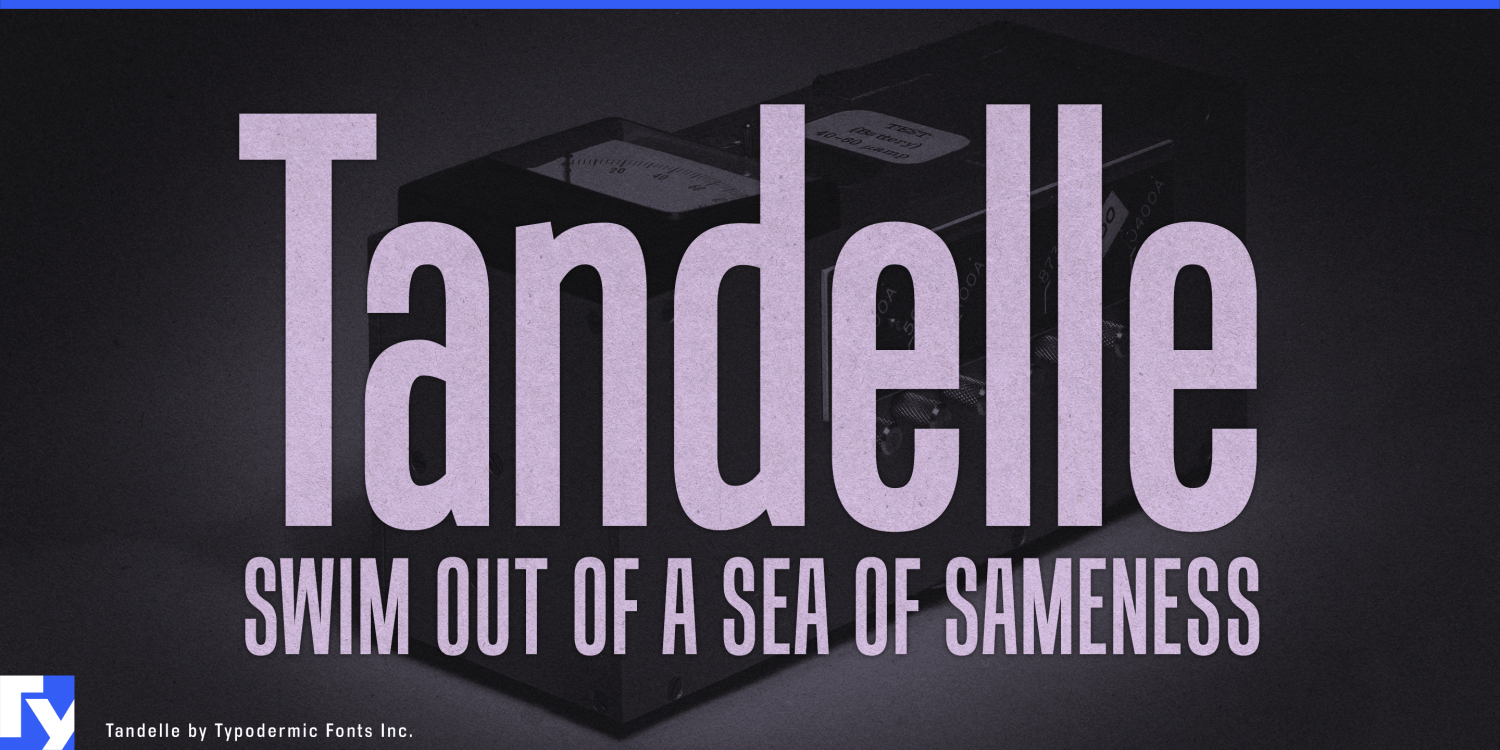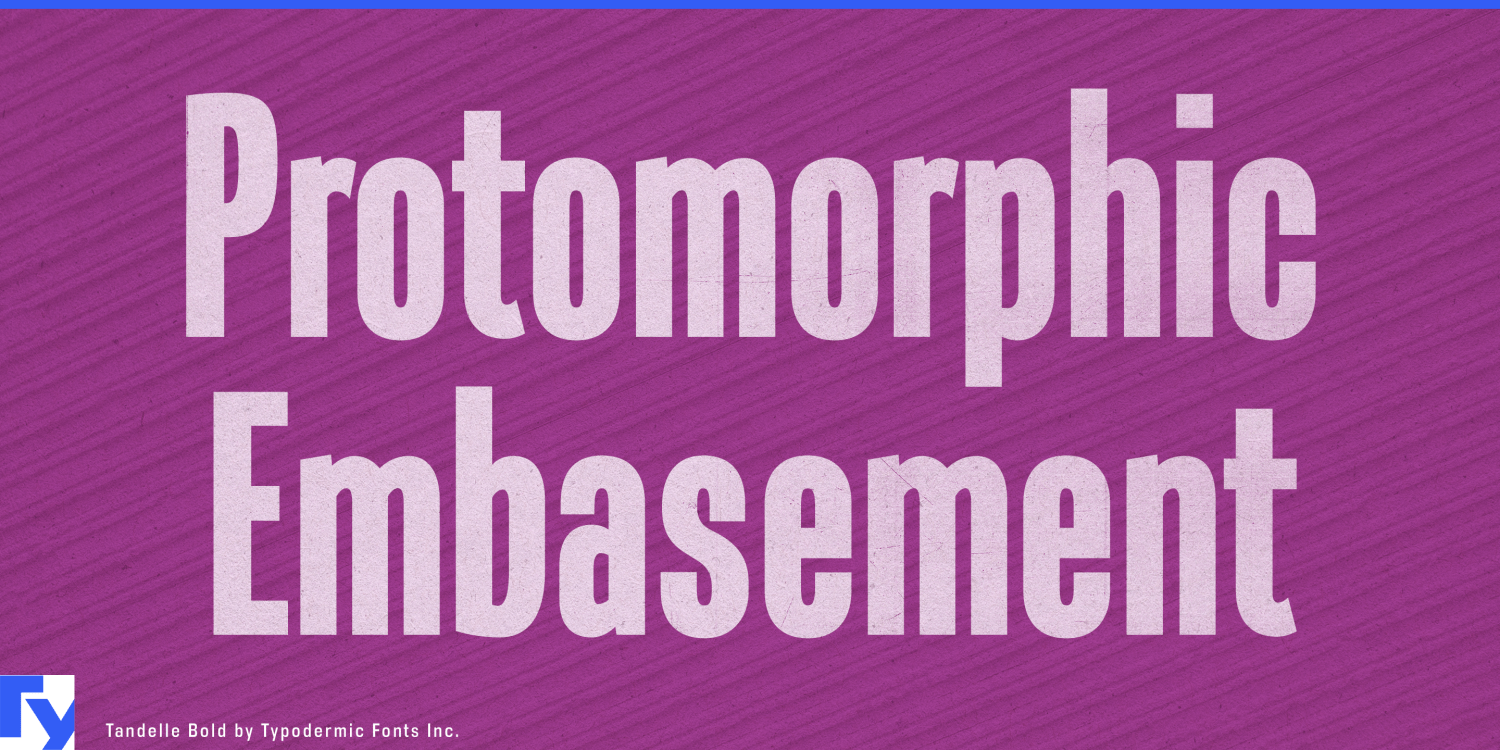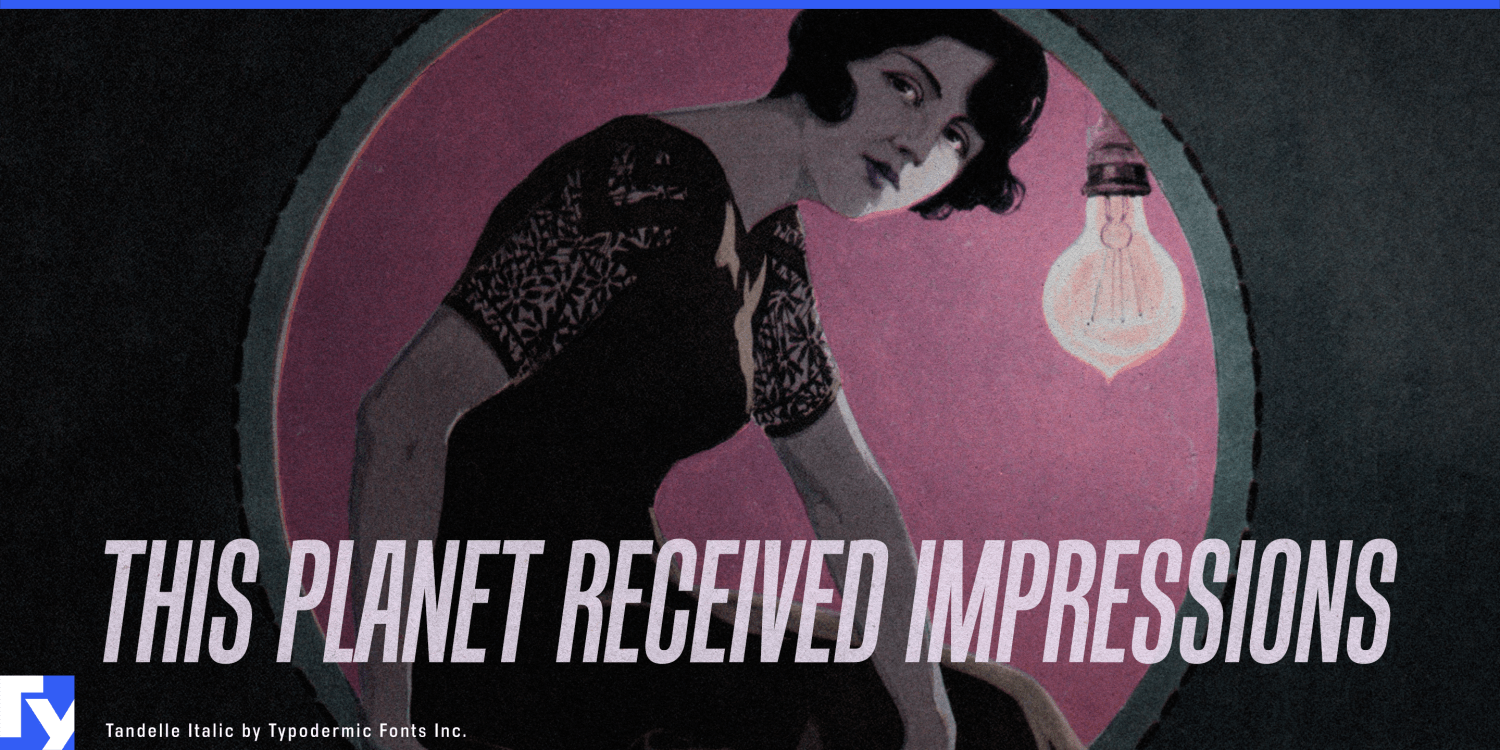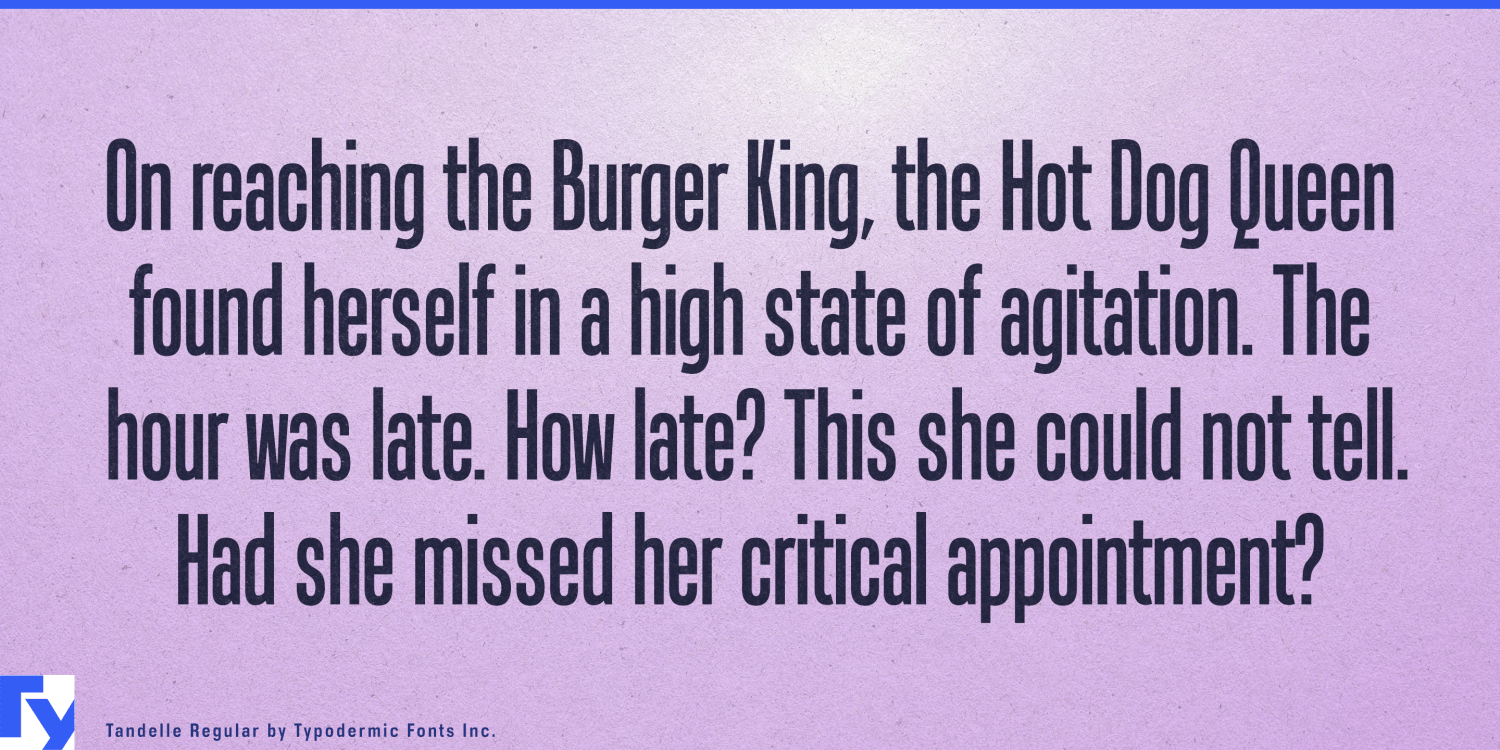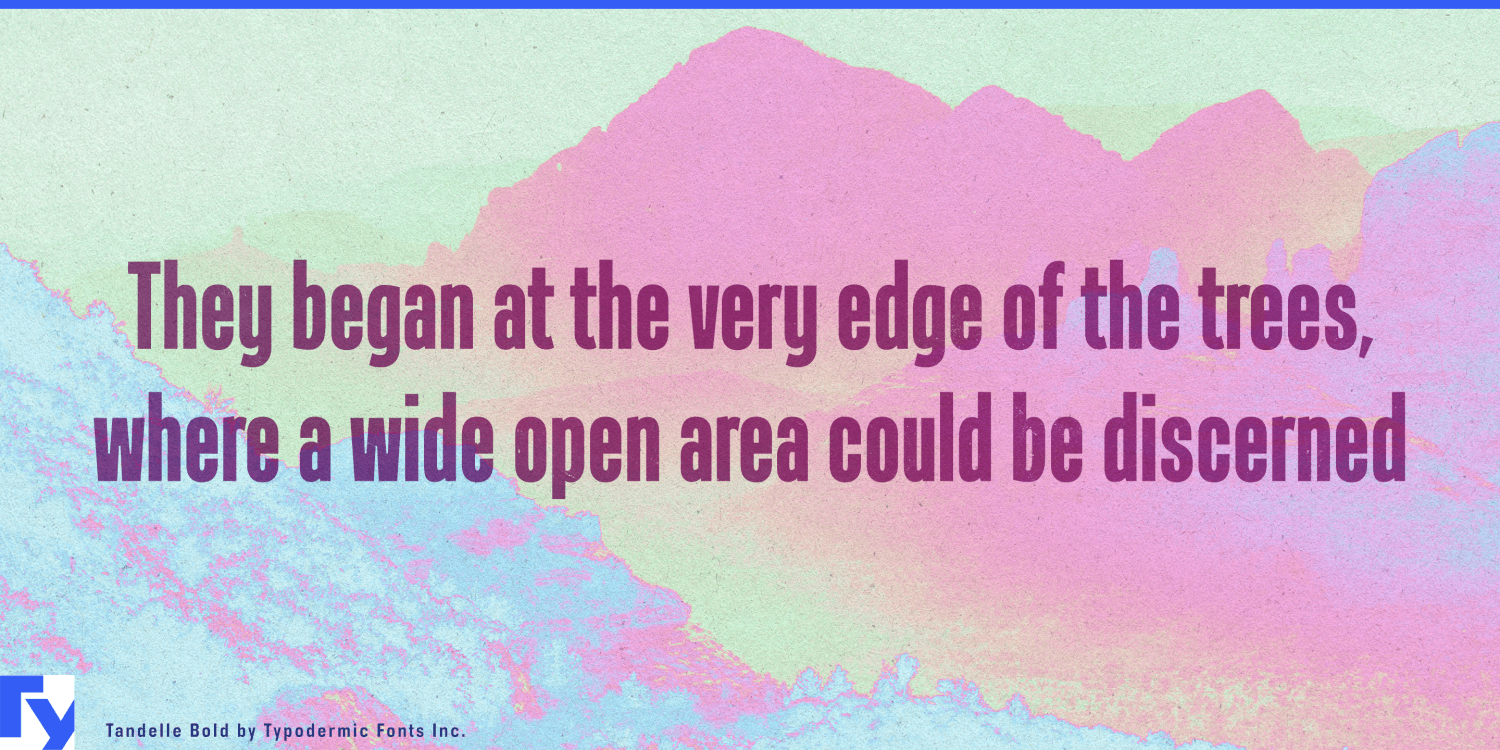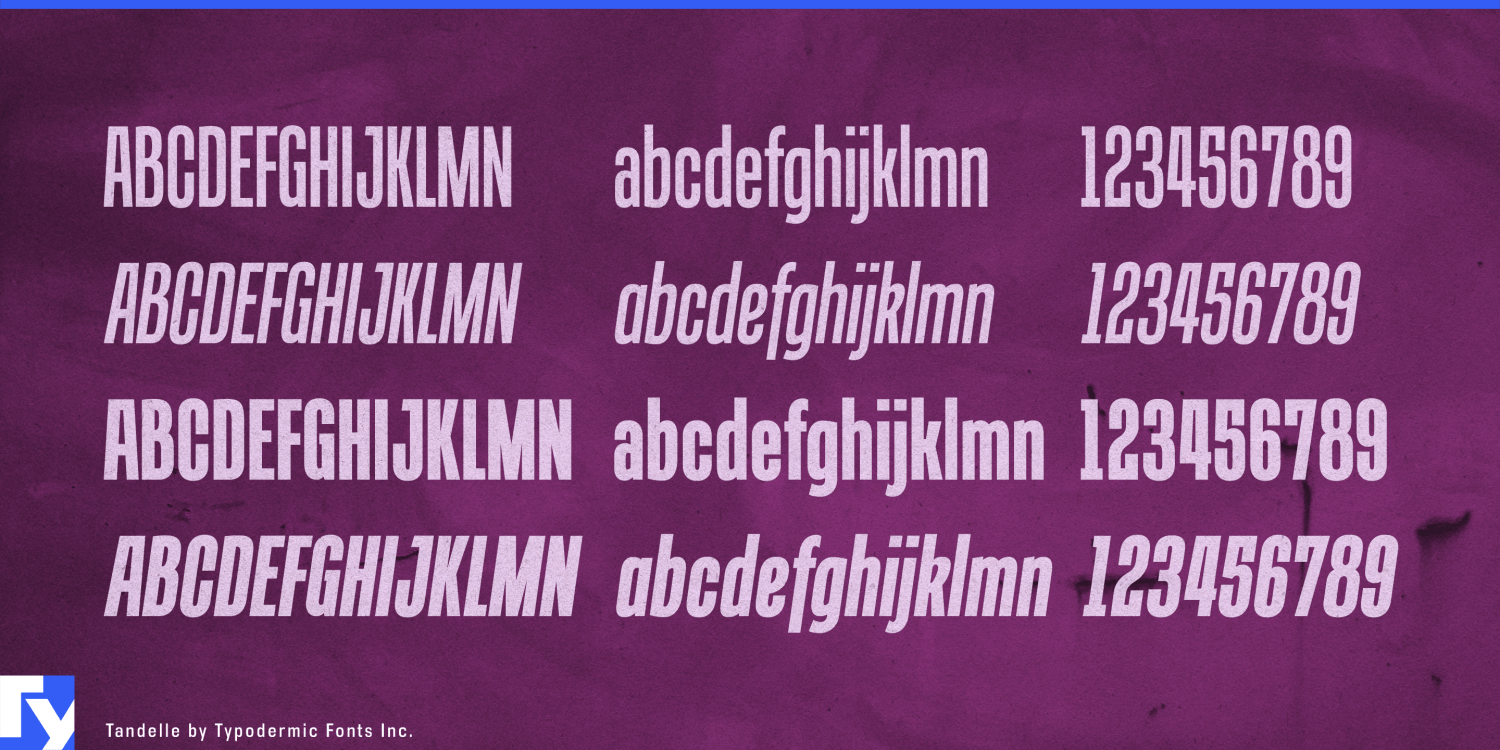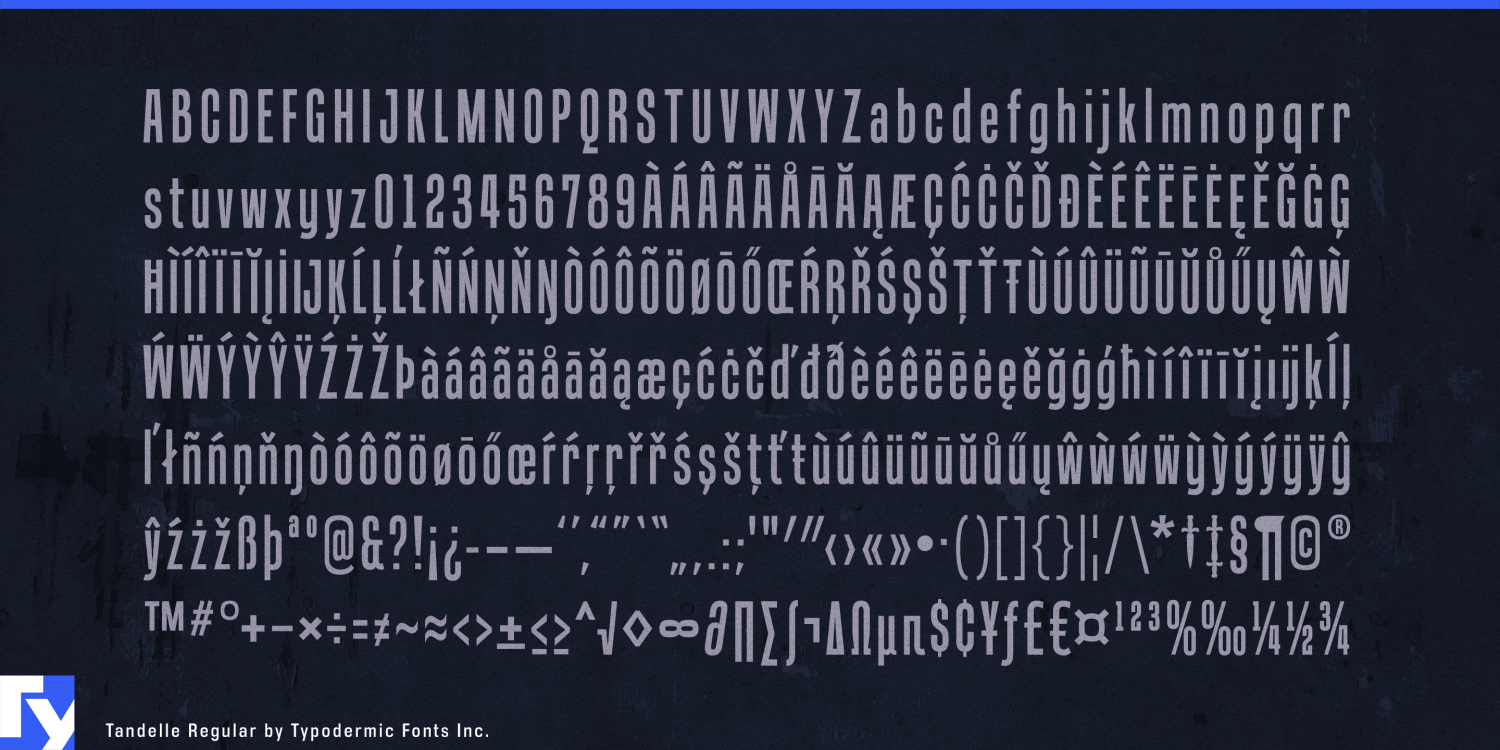
Tandelle
Some words cannot be shortened, but the space around them cannot get wider. A long flavor name on a slim can, an awkward destination on a transit display, or an equipment name inside a fixed game interface can force designers to shrink the type until the information loses presence. Tandelle solves the problem by compressing the letters instead. Its narrow proportions preserve comparatively open counters, allowing important words to stay visibly large when horizontal space is scarce.
Slim beverage packaging is a natural fit. Electrolyte drinks, energy drinks, canned cold brew, matcha and tea, sparkling water, botanical sodas, protein drinks, and other functional beverages often arrive in tall cans with generous vertical space but a narrow front-facing area. Tandelle can keep brand names, flavors, ingredients, and performance descriptors facing forward instead of letting them disappear around the cylinder.
The same logic works on tall bottles for sports hydration, ready-to-drink coffee and tea, functional water, kombucha, juice blends, and refrigerated wellness drinks. It is especially useful for product systems with structured naming: one master brand followed by changing ingredients, benefits, flavors, or formulations. Performance-oriented shampoo, conditioner, body wash, sunscreen spray, and salon products can use the same space-saving logic on narrow bottles.
Tandelle also suits game interfaces, particularly strategy games, management simulations, vehicle and equipment games, tactical systems, sports-management titles, and live-service games with large inventories. Weapon names, vehicle variants, character classes, mission titles, map locations, team names, and localized menu strings often have to fit panels whose dimensions cannot change. Tandelle gives those labels more room before the type has to shrink.
Public self-service equipment creates the same problem in the physical world. EV chargers need connector names, tariffs, session information, and charging status; parcel lockers handle pickup instructions and recipient details; railway ticket machines and airport kiosks must accommodate destinations, fare types, and multilingual options.
Transit and broadcast systems provide further examples. Long station names, destination displays, service notices, airport gate graphics, sports lower thirds, documentary captions, conference streams, and esports broadcasts all rely on templates that must absorb unpredictable text.
Tandelle is condensed for a practical reason rather than condensed for spectacle. Its job is to preserve useful scale when space runs out: on a slim can, a tall bottle, a game panel, a ticket machine, or any other layout where the words have to fit but still deserve to be seen.